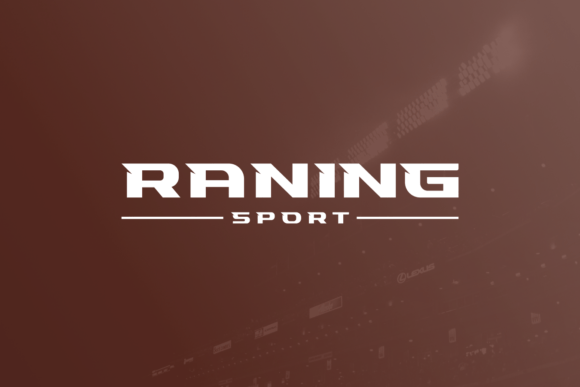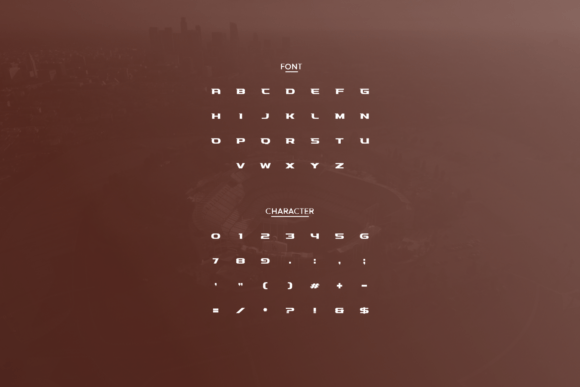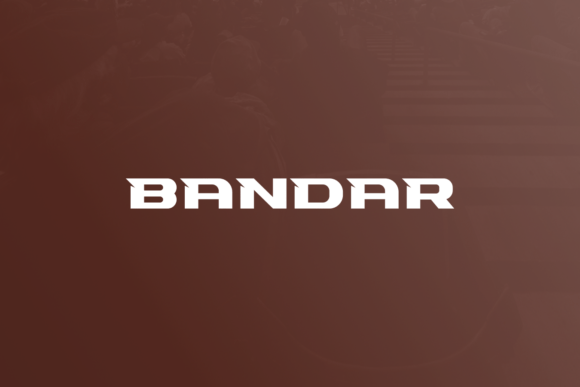
Introduction to Rarhing Font
Have you ever stared at a blank canvas, eager to bring your creative vision to life, only to be held back by the perfect font to match your idea? This is where the Rarhing Font comes in – a simple yet modern display font that effortlessly combines the formal look with a playful twist, giving designers the freedom to explore endless possibilities.
As a valuable resource for designers, the Rarhing Font is a high-quality addition to any creative project, allowing you to convey your message with precision and style. Its unique appeal is not limited to its aesthetic, but also its versatility, making it an ideal choice for designs that require a transparent background or a bold statement.
Key Features of Rarhing Font
- High-quality design resource ideal for creative projects, offering a professional touch.
- Includes multiple styles and weights, providing flexibility for designers to experiment with different looks and feels.
- Perfect for use in logos, branding materials, and other visual identity elements due to its modern and sleek aesthetic.
Honest Review: Rarhing Font
I recently had the chance to experiment with the Rarhing Font, and I must say it was a pleasant experience. This design resource is perfect for any creative project that requires a high-quality, modern font.
One of the things that works well with the Rarhing Font is its versatility. It’s suitable for a wide range of applications, from web design to print media, and it’s easily customizable to fit your project’s needs. ✨ The font’s sleek and minimalistic design makes it a great choice for projects that require a clean and sophisticated look.
Another advantage of the Rarhing Font is that it comes with a transparent background, making it easy to overlay on any design. This feature is especially useful when working with complex compositions.
What I Like:
- High-quality, modern design
- Versatile and customizable
- Transparent background for easy overlaying
- May not be suitable for projects that require a bold or playful font style
- Some users may find the font too minimalist
Rarhing Font is ideal for use in logos, branding materials, and digital graphics. It’s also a great choice for creating eye-catching titles and headings in presentations and documents.